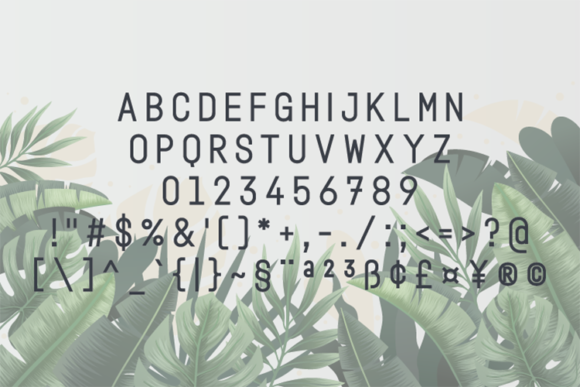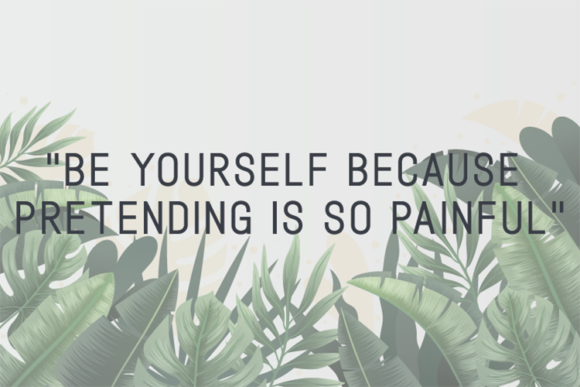
Ducoco Font: The Ultimate Sans Serif Font for Designers and Crafters
Are you tired of using fonts that are too bold or too bland? Look no further than the Ducoco font, a smooth sans serif font that is perfect for any design need. With its perfectly balanced mix of smooth and sharp lines, Ducoco is the ideal choice for designers and crafters who want to add a touch of elegance and sophistication to their work.
What is Ducoco Font?
Ducoco font is a modern sans serif font that is designed to be versatile and easy to read. Its smooth lines and rounded edges make it perfect for body text, while its sharp lines and clean design make it ideal for headings and titles. Ducoco font is available in various weights, making it suitable for a wide range of design applications, from digital media to print materials.
Key Features of Ducoco Font
- Smooth and Sharp Lines: Ducoco font features a unique blend of smooth and sharp lines, making it stand out from other sans serif fonts.
- Perfectly Balanced: The font’s balanced design ensures that it is easy to read and visually appealing, making it perfect for long-form content and short-form text alike.
- Versatile: Ducoco font is suitable for a wide range of design applications, including digital media, print materials, and more.
- Easy to Read: The font’s clear and clean design makes it easy to read, even at small sizes.
Benefits of Using Ducoco Font
So why choose Ducoco font for your design projects? Here are just a few benefits of using this amazing font:
- Enhance Readability: Ducoco font’s clear and clean design makes it easy to read, even for long-form content.
- Boost Visual Appeal: The font’s unique blend of smooth and sharp lines adds a touch of elegance and sophistication to any design.
- Increase Versatility: Ducoco font is suitable for a wide range of design applications, making it a great addition to any designer’s toolkit.
- Save Time: With Ducoco font, you can create professional-looking designs quickly and easily, saving you time and effort.
How to Use Ducoco Font in Your Designs
Using Ducoco font in your designs is easy. Here are a few tips to get you started:
- Pair it with Other Fonts: Ducoco font pairs well with other sans serif fonts, as well as serif fonts. Experiment with different combinations to find the perfect look for your design.
- Use it for Headings and Titles: Ducoco font’s sharp lines and clean design make it perfect for headings and titles.
- Use it for Body Text: The font’s smooth lines and rounded edges make it suitable for body text, especially for digital media.
In conclusion, Ducoco font is a versatile and elegant sans serif font that is perfect for designers and crafters. Its unique blend of smooth and sharp lines, balanced design, and ease of use make it an ideal choice for a wide range of design applications. Whether you’re creating digital media, print materials, or simply want to add a touch of sophistication to your designs, Ducoco font is a great choice.
- What is the style of Ducoco font? Ducoco font is a modern sans serif font with a smooth and sharp design.
- Is Ducoco font suitable for body text? Yes, Ducoco font is suitable for body text, especially for digital media.